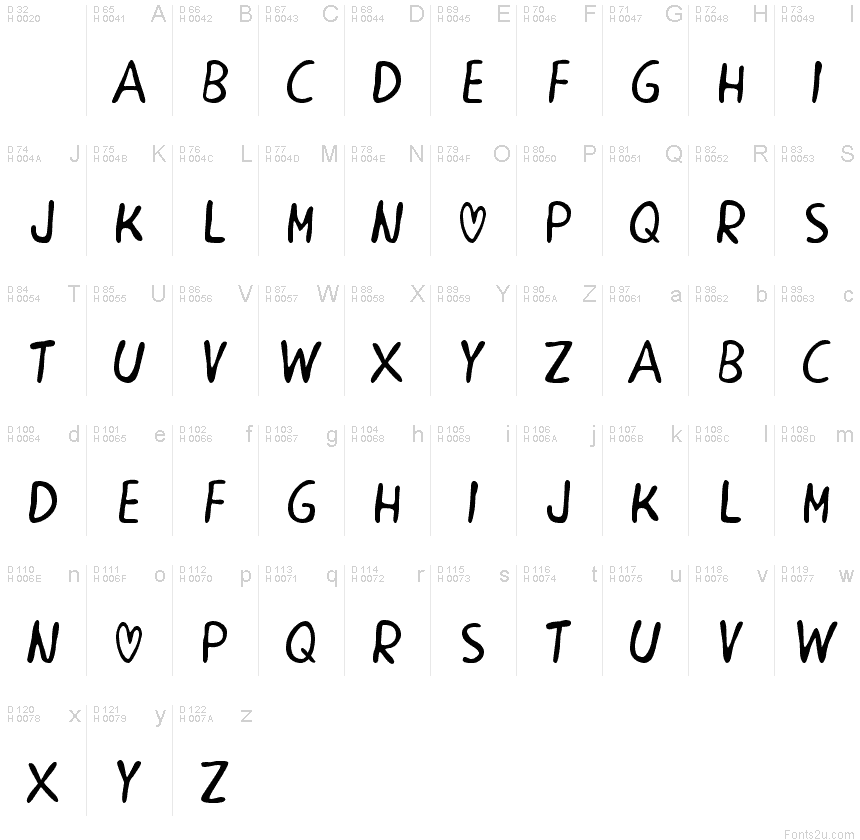
PEACECHILD BETA
Peacechild by P2+K2 is a free handwritten font shaped by a loose, childlike rhythm and broad rounded strokes. The lettering swings between soft curves and sudden pointed peaks, giving it an informal homemade presence that feels more drawn than neatly scripted.
That uneven energy makes sense on peace posters, zines, classroom signs, album art, and youth event flyers. Short headlines and themed packaging benefit most, since the simplified forms and slightly wobbly flow give words a direct, handmade tone instead of a polished sign-painter finish.